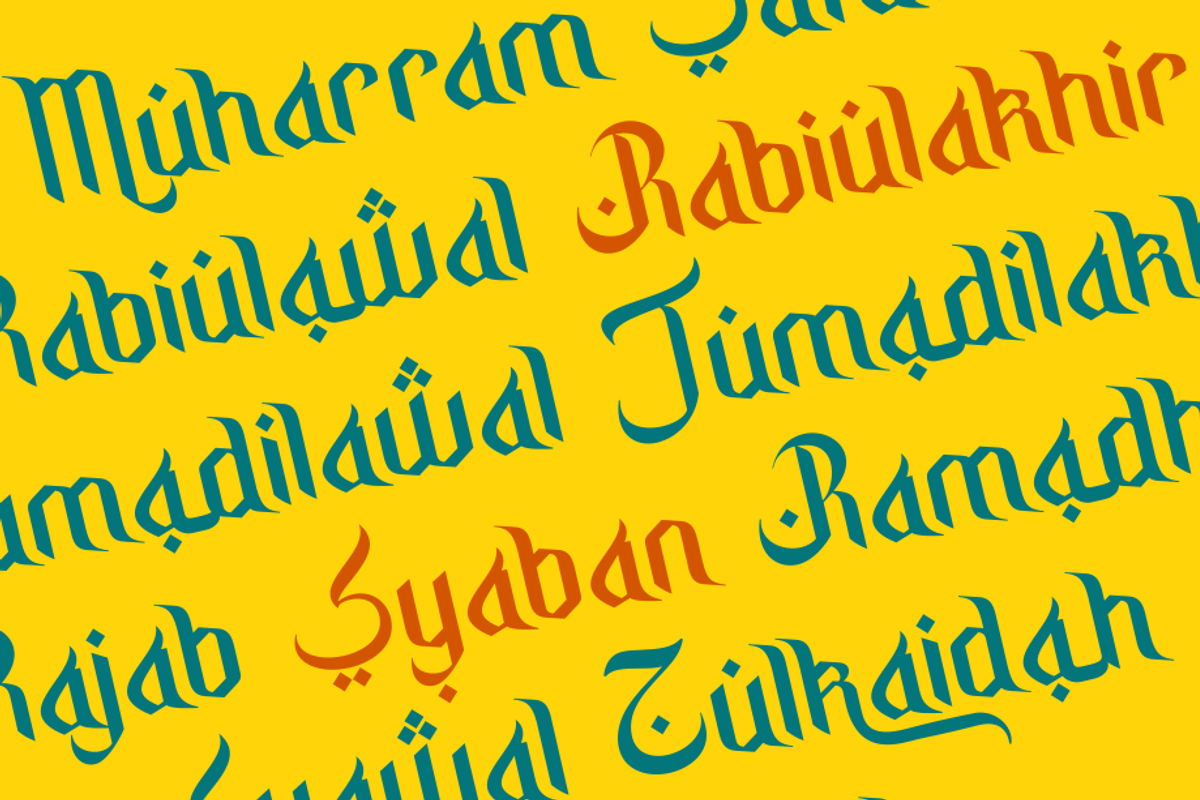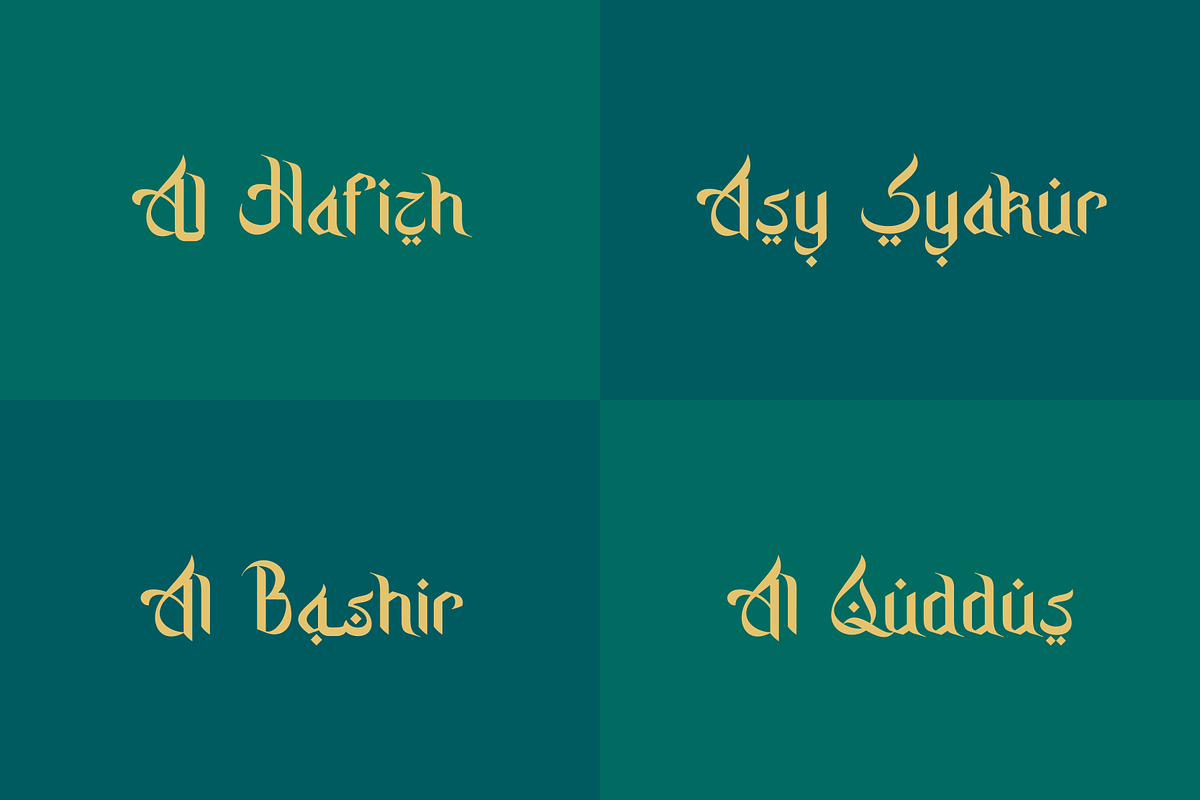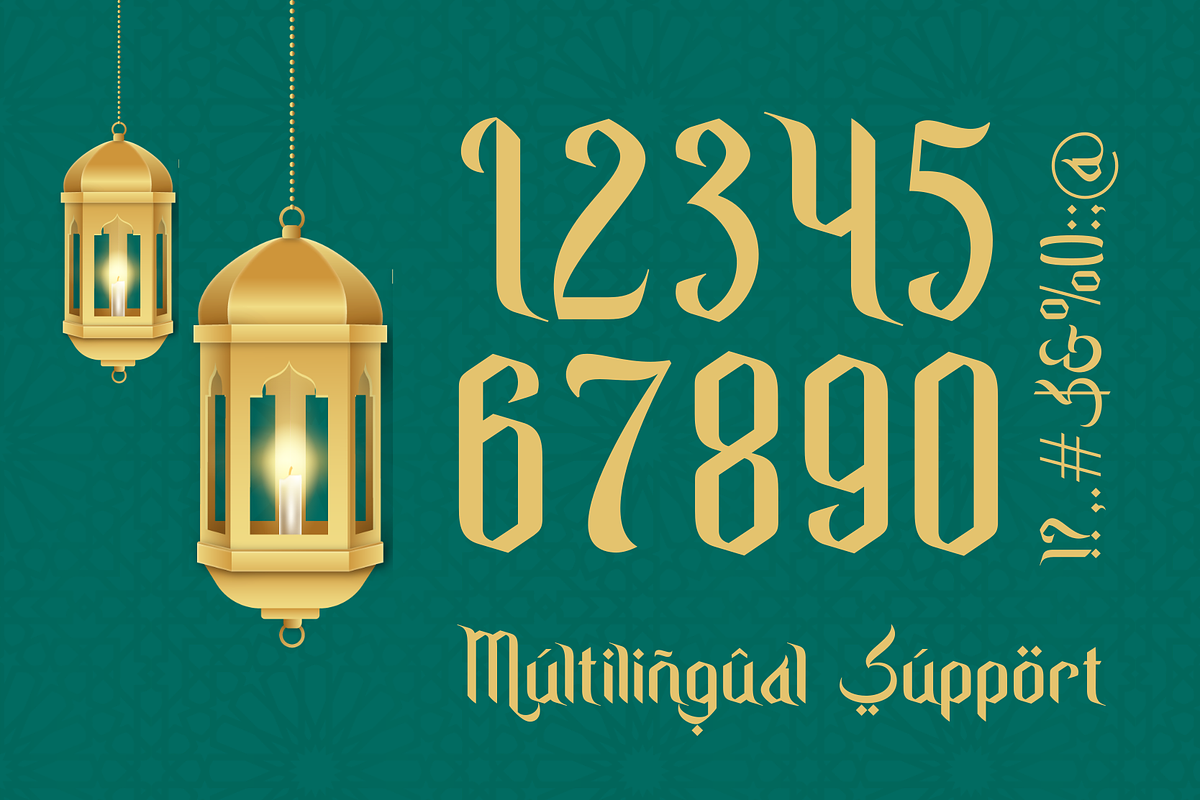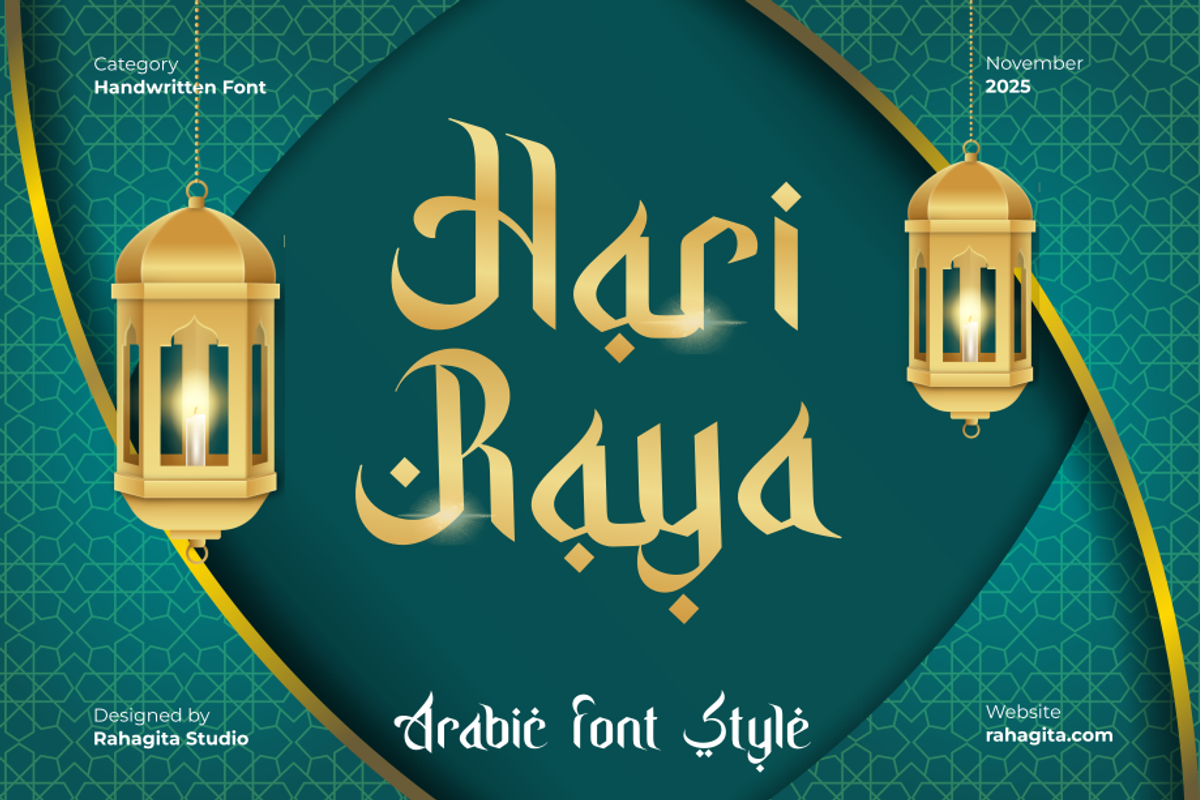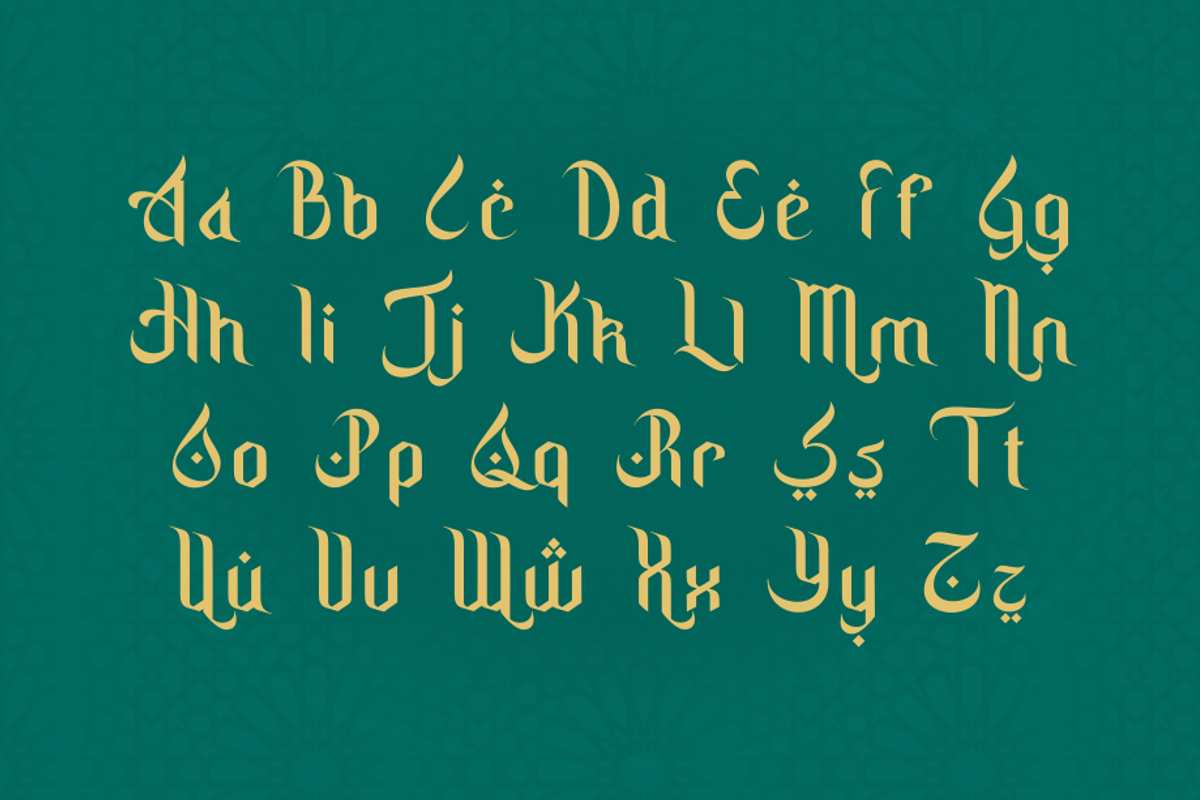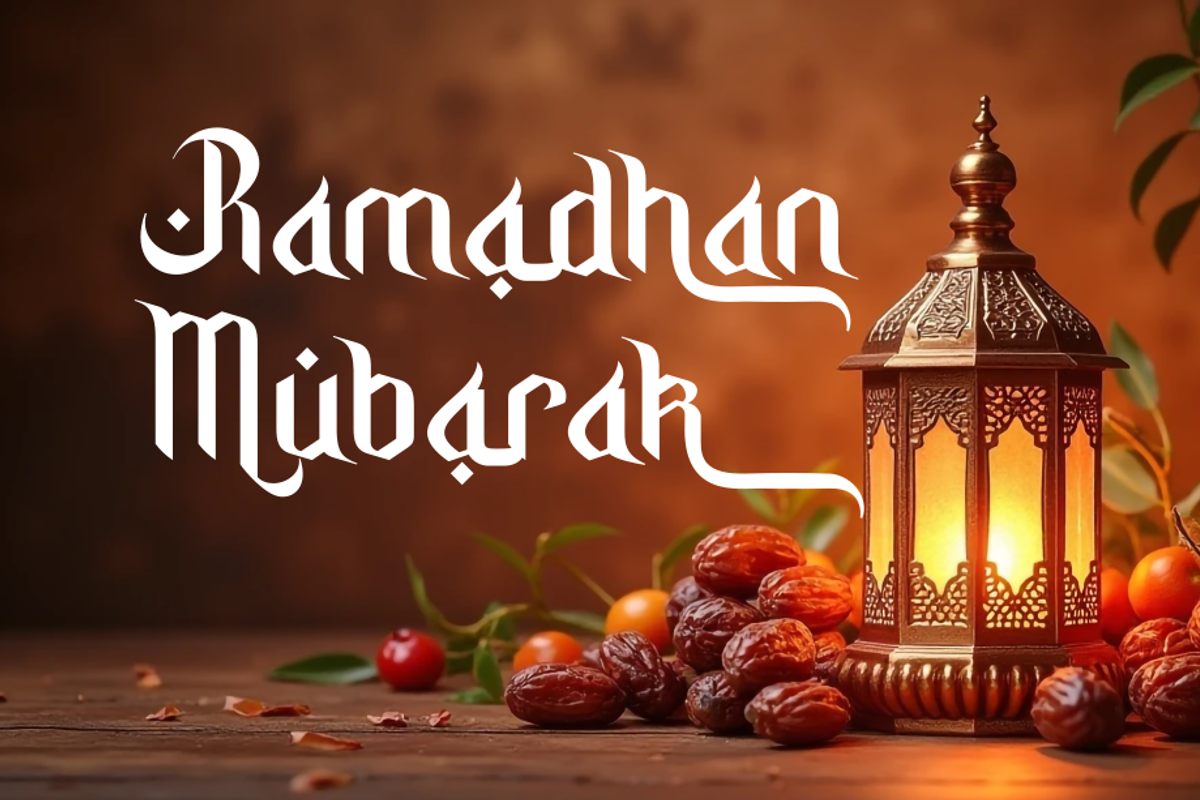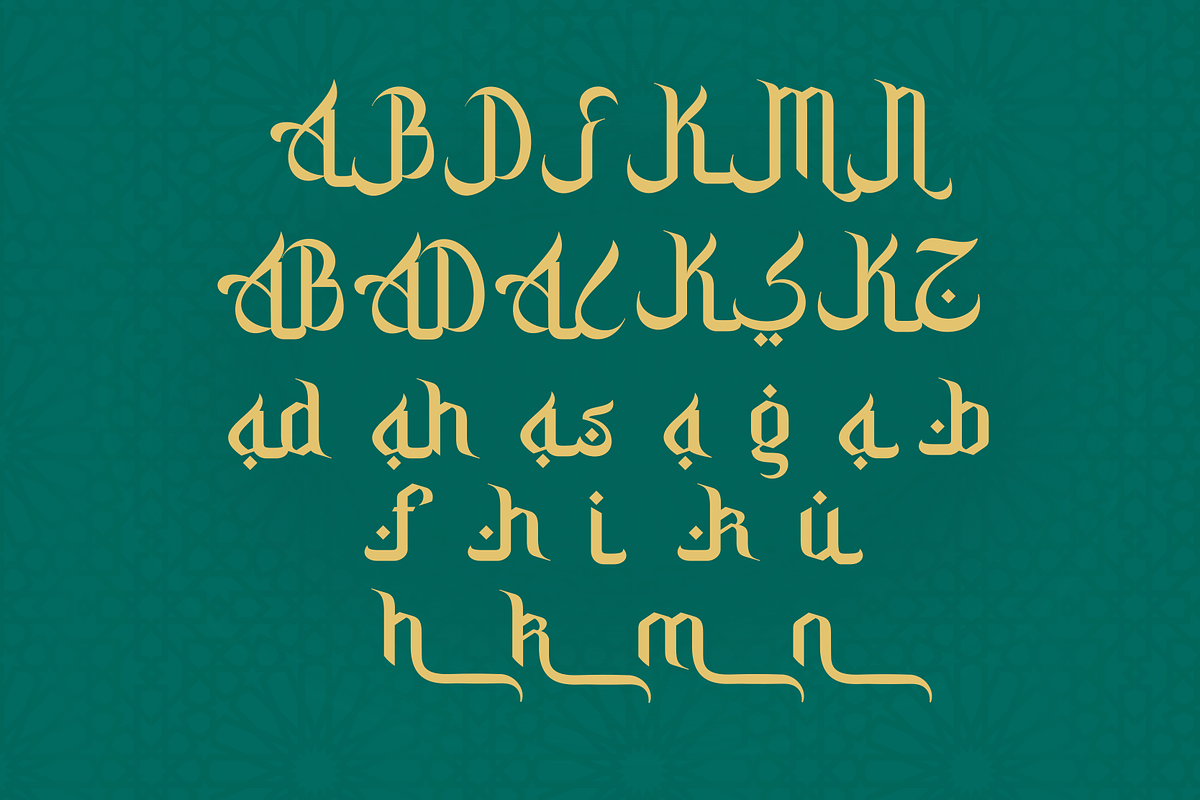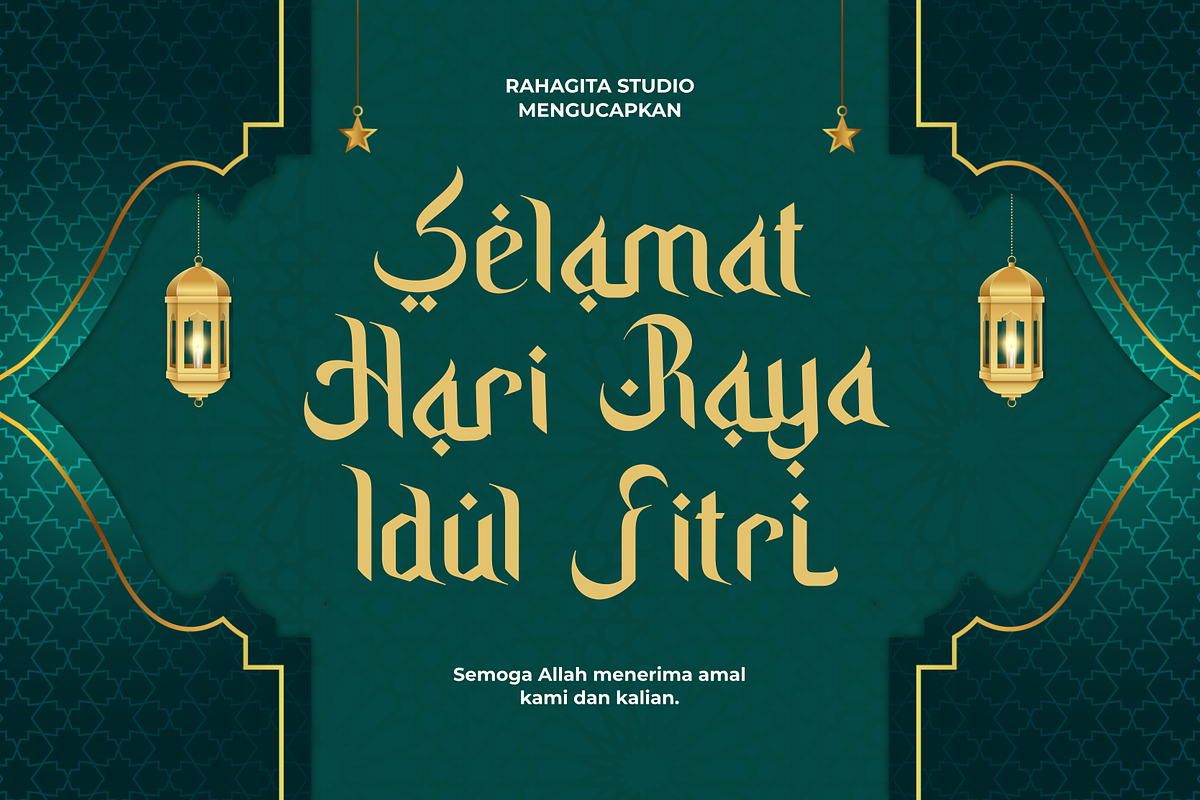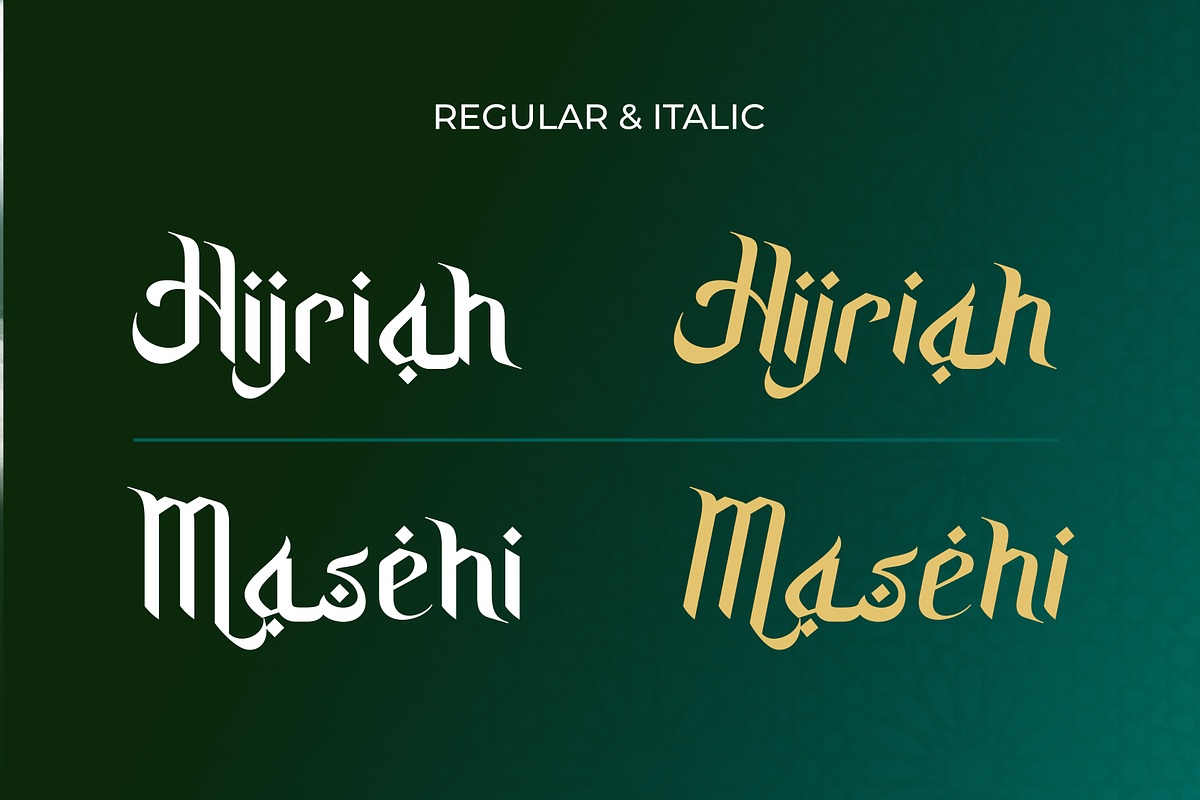
Hari Raya
Hari Raya is an elegant Arabic-style handwritten font that beautifully blends traditional Islamic aesthetics with modern design. Featuring Regular and Italic styles with 236 glyphs, this font offers graceful curves and cultural sophistication, perfect for festive and spiritual themes. Ideal for Ramadan and Eid designs, branding, packaging, greeting cards, and mosque or event posters, Hari Raya delivers a luxurious and authentic Middle Eastern feel. Bring warmth and celebration to your creations with the timeless beauty of Hari Raya Font — a perfect harmony of faith, art, and elegance.